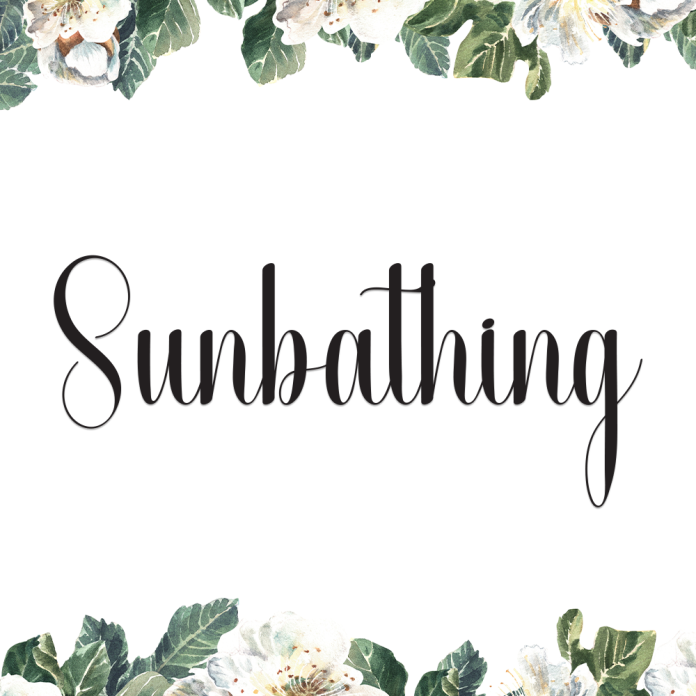
Sunbathing is a laid-back and breezy handwriting font that brings a touch of summer warmth to your designs. Its casual, sun-kissed strokes mimic the feel of writing in a journal while lounging under the sun.
Perfect for travel blogs, summer-themed projects, Instagram posts, and creative branding, Sunbathing adds personality, warmth, and a friendly charm to any layout.
Relaxed, handwritten style
Light and flowing letterforms
Ideal for quotes, postcards, packaging, and lifestyle branding
Capture the essence of sunshine and freedom with Sunbathing – a font that radiates ease and joy.